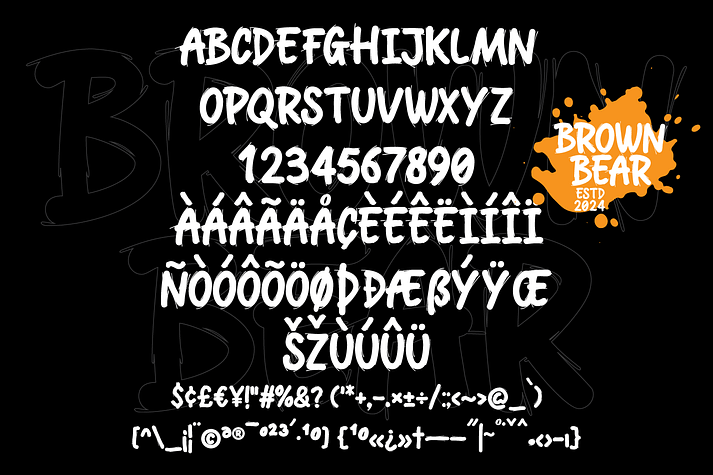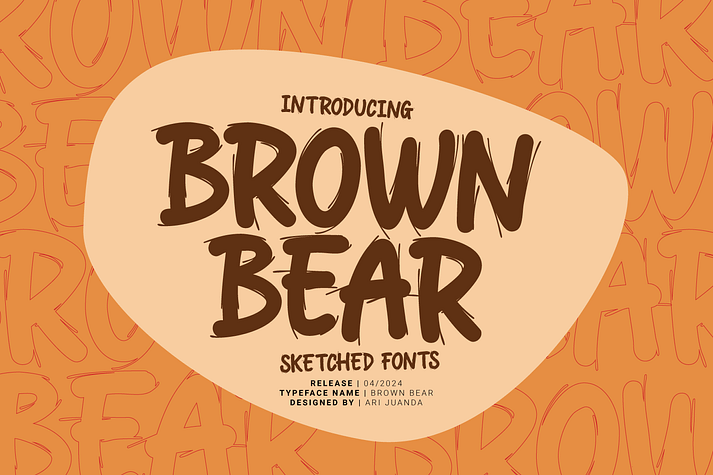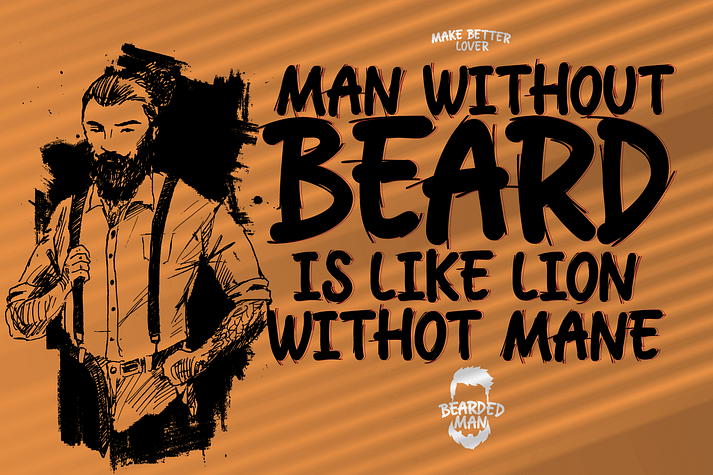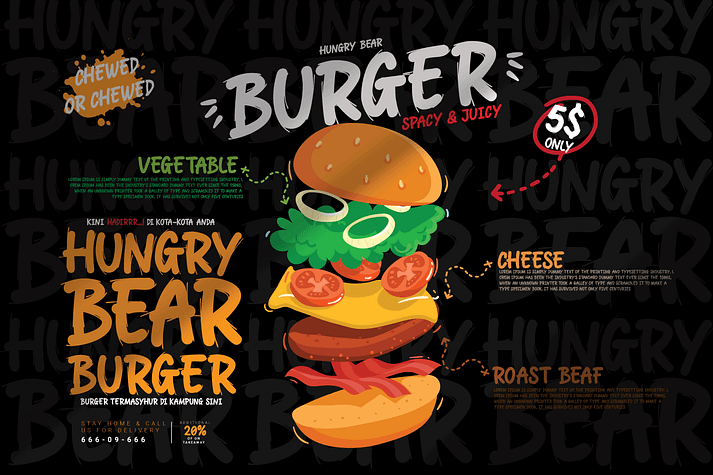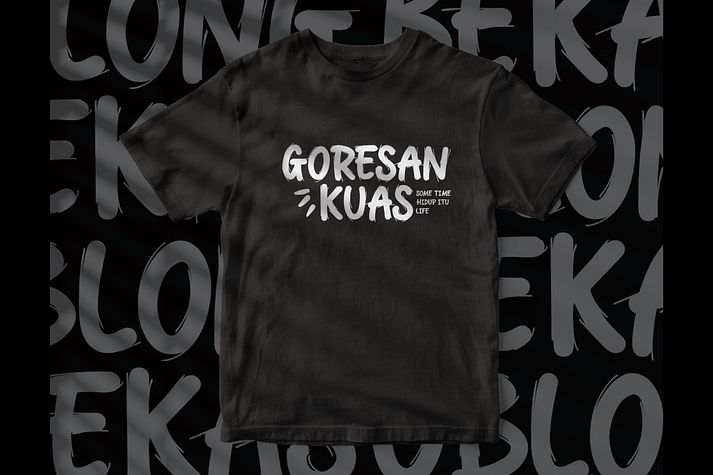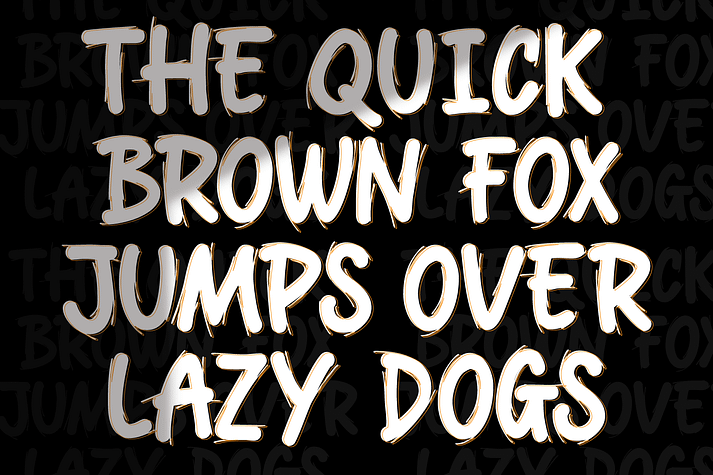
Brown Bear
Brown Bear is a font family published by Linecreative.
introducing “Brown Bear” – A Playful Font Look Get ready to infuse your projects with extra imagination and charm with our newest creation, “Brown Bear”. This adorable display font is inspired by an animated cartoon bear, a font designed with sketches to bring a touch of fun to your creative endeavors.